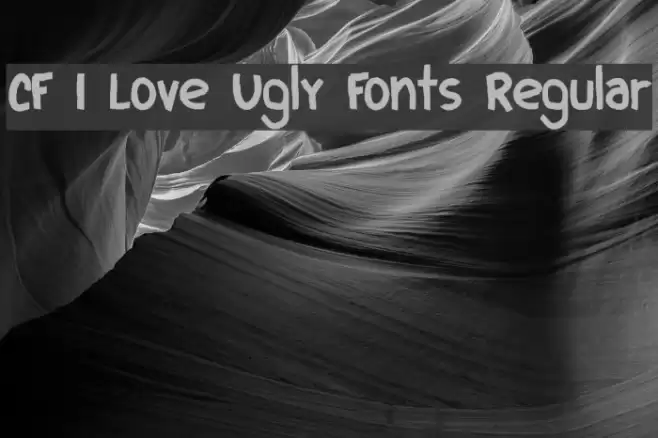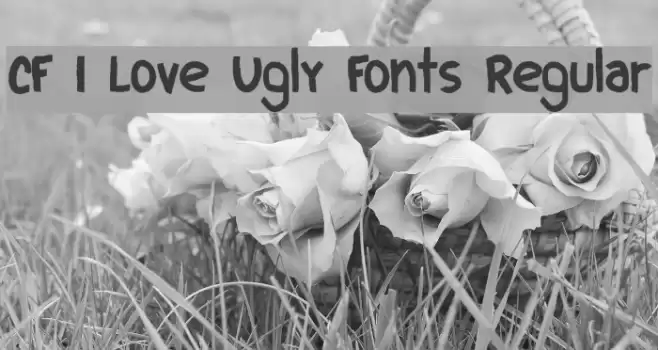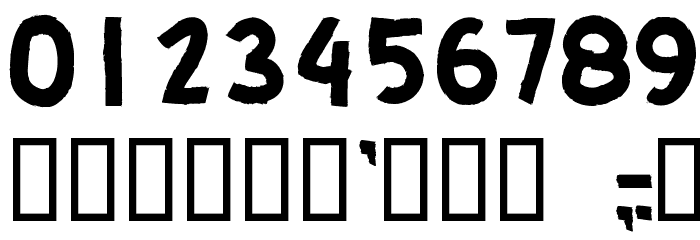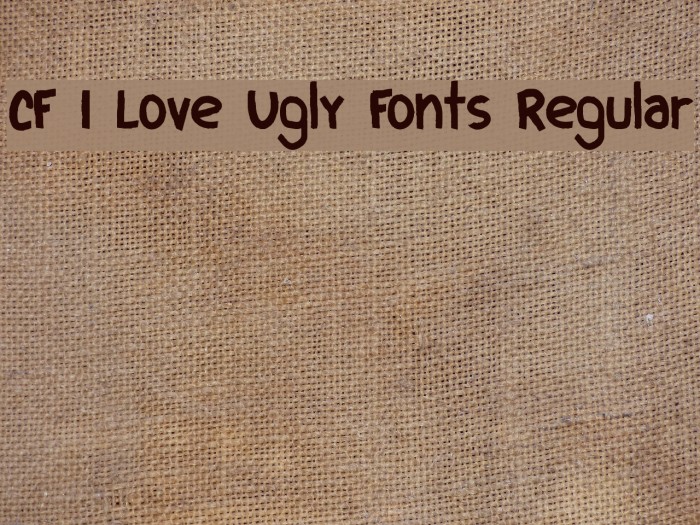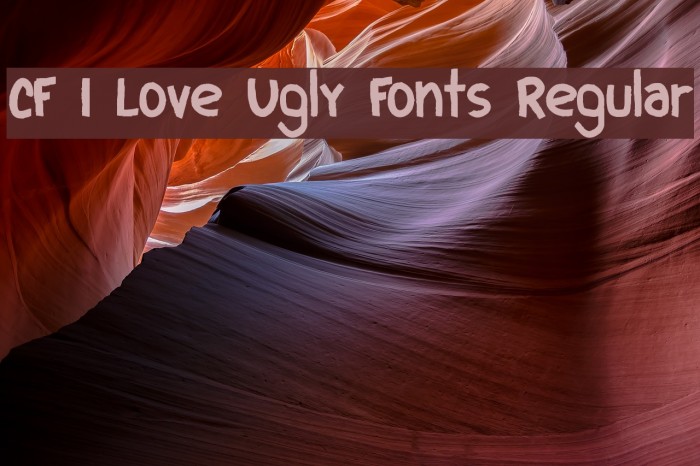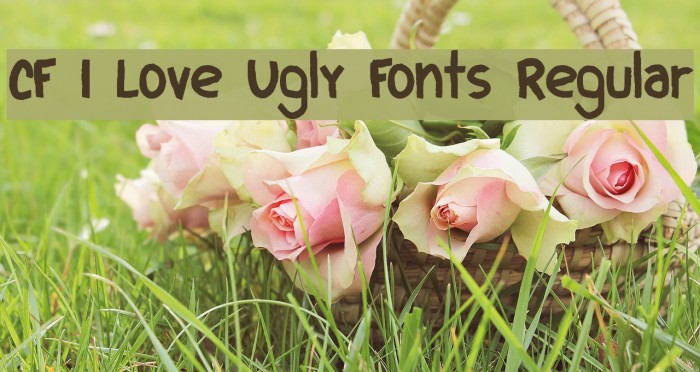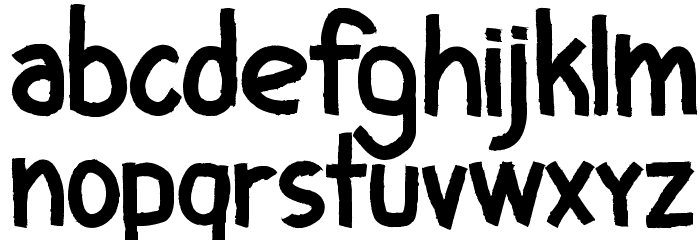
CF I Love Ugly Fonts Regular Font
CF I Love Ugly Fonts Regular Description
This font features a bold, hand-drawn style with a playful and slightly irregular appearance. The characters have a rough, textured look, giving them a unique and artistic feel. The uppercase and lowercase letters maintain a consistent style, with thick strokes and uneven edges that add to the font's charm. The numbers and special characters follow the same design, ensuring a cohesive look across all elements. This font's distinctive style makes it stand out, offering a creative and informal vibe.
A bold, hand-drawn font with a playful and textured appearance from Uncategorized fonts.
- Proposed Projects: Ideal for creative projects such as posters, album covers, children's books, and artistic branding.